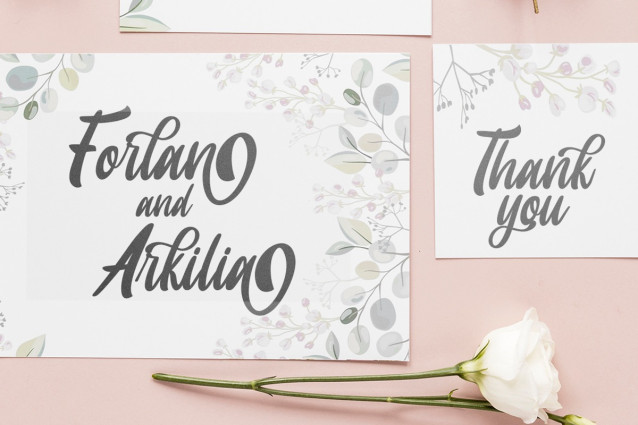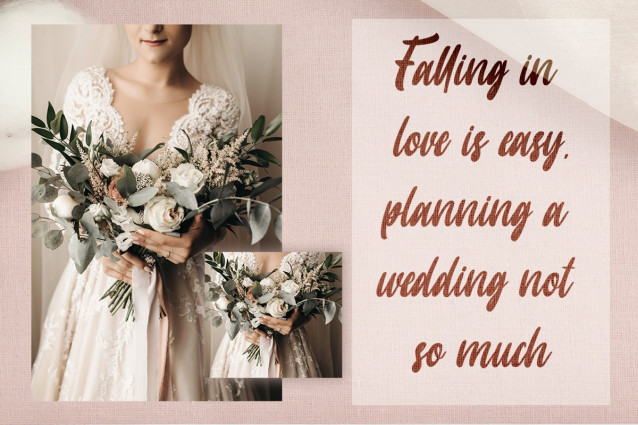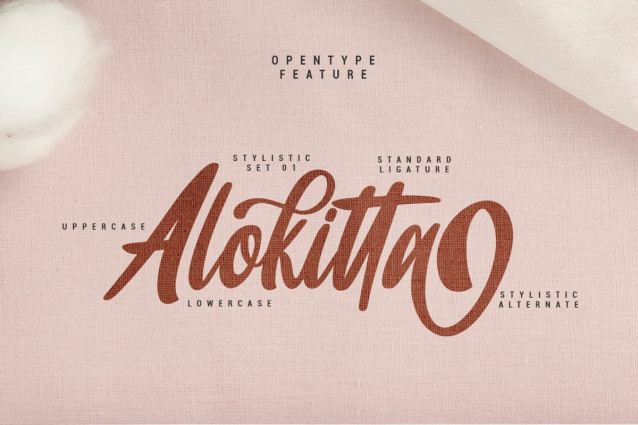
Frikaya Script Font
Frikaya Script Font is a Modern script font combined with a rapi so it looks elegant, suitable to support a variety of designs and your business